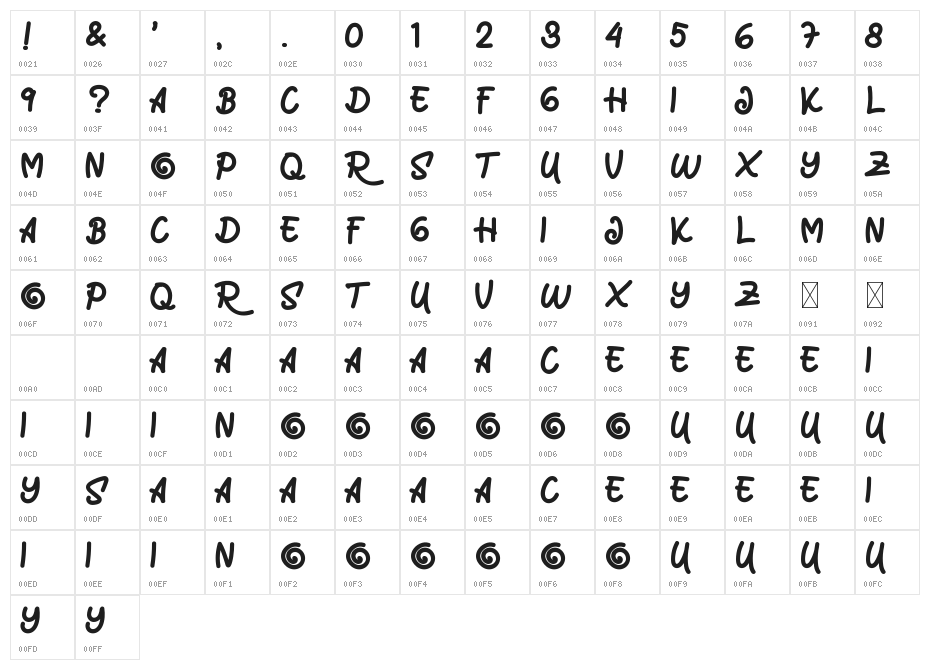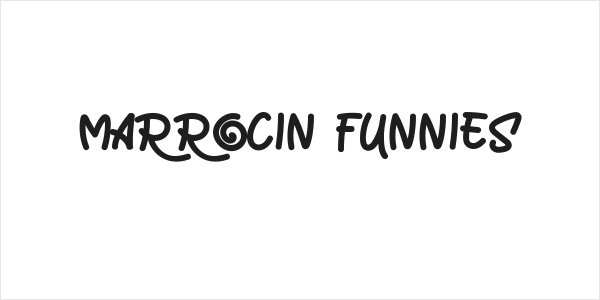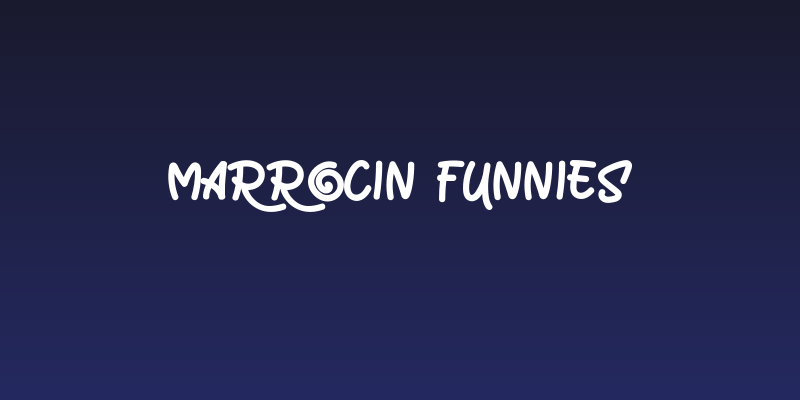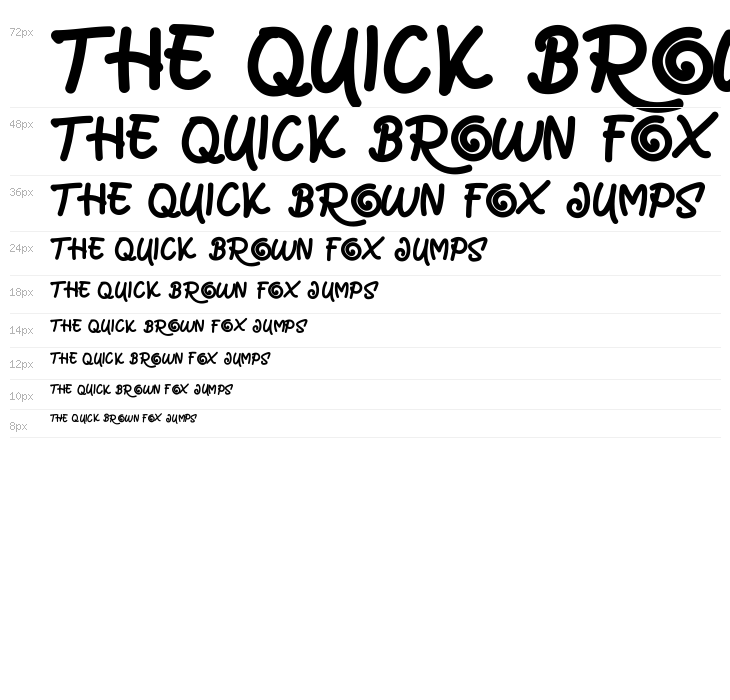
Marrocin Funnies Font
Marrocin Funnies Description
This font features a playful and bold style with a handwritten appearance. The characters are rounded and have a smooth, flowing quality that adds a sense of fun and whimsy. The uppercase and lowercase letters are consistent in their playful curves, and the numbers maintain the same lively aesthetic. Special characters are also designed with the same playful touch, making this font suitable for creative and informal projects. Its bold strokes and rounded edges give it a friendly and approachable look, perfect for capturing attention in a fun and engaging way.
Overall StylePlayful
Proposed ProjectsIdeal for children's books, comic strips, playful branding, party invitations, and creative posters.